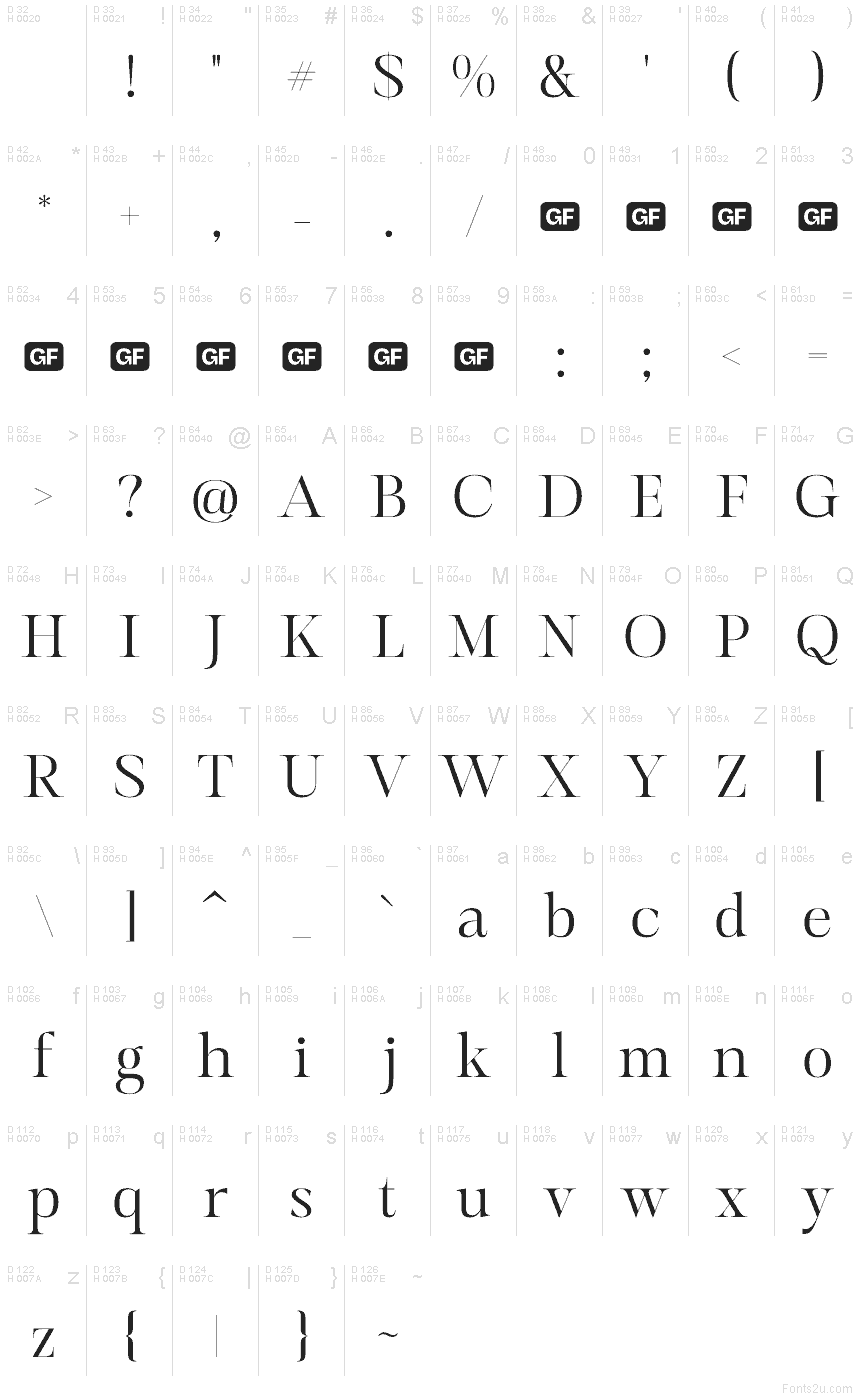
Mevara Trial Regular
Mevara font by Glyphofik Studio is a versatile serif font that combines elegance with modern sophistication. Its refined serifs and stylish appearance make it suitable for any design project needing a touch of class. This free downloadable font supports designers by allowing the creation of legible yet beautifully crafted content.
The font is exceptionally versatile and will flawlessly fit in magazine and book covers, brochure designs, posters, packaging, Menu layouts, mobile applications UIs, and websites among others.